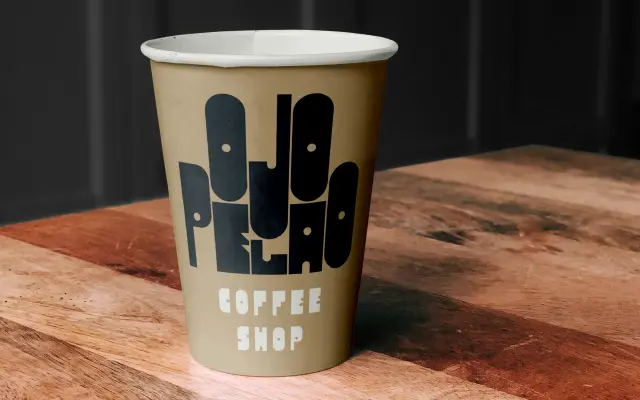
Perfora
A heavy, monospaced variable display font with punch-hole counters, designed to stretch across five widths and five heights for logos, posters and festival lineups.
Built by In-House International and designed by Alexander Wright, Perfora pairs the solidity of a brick-like mono construction with variable axes that let words expand taller or wider to fill any format. Two uppercase styles, rounded and angular, sit alongside 19 ornamental glyphs and stylistic alternates. Available as a single variable TTF or as 25 static OTF files spanning five widths and five heights.
Perfora is a monospaced, brick-like display font with punch-hole shaped counters, available as a variable font with axes for width and height. Its primary use case is logos, posters and festival lineups, placing it firmly in the display category.